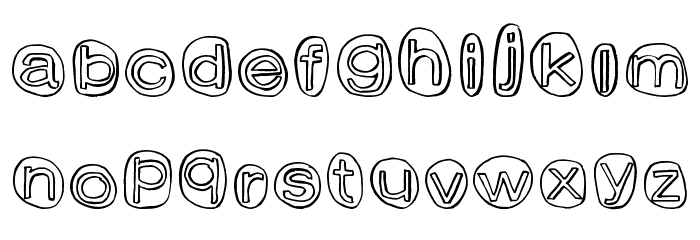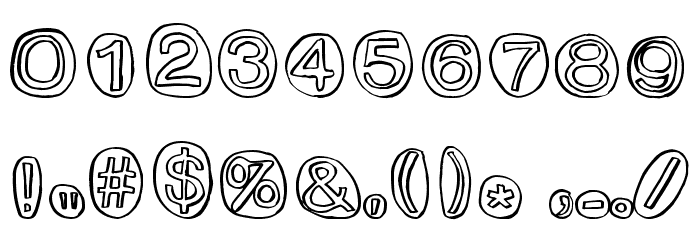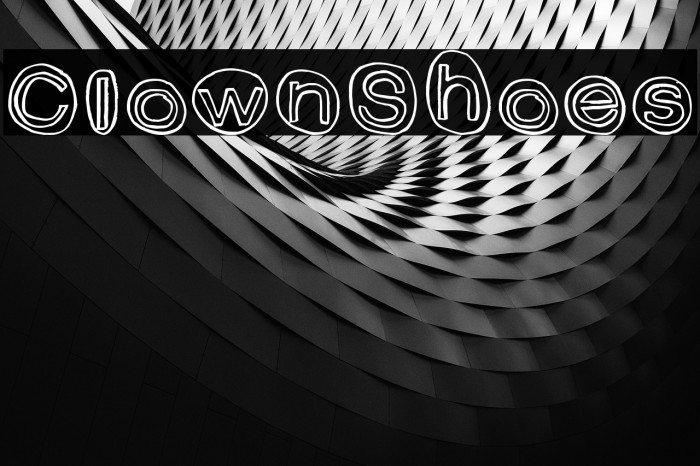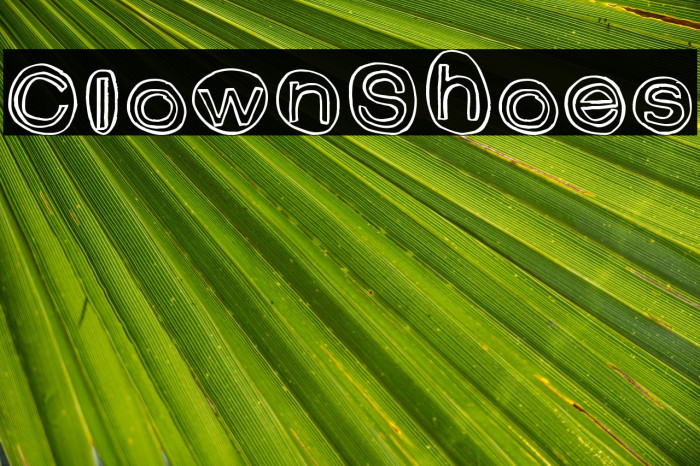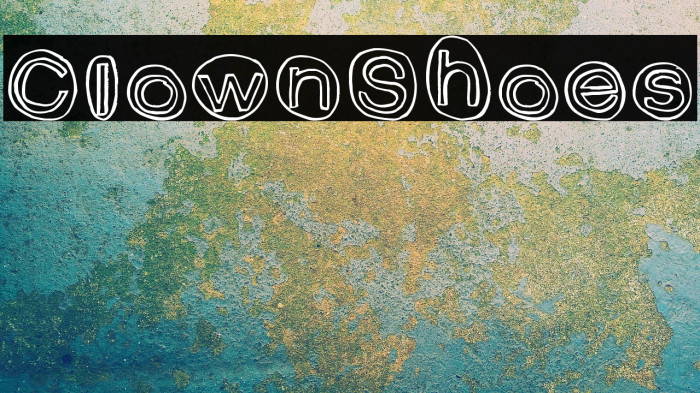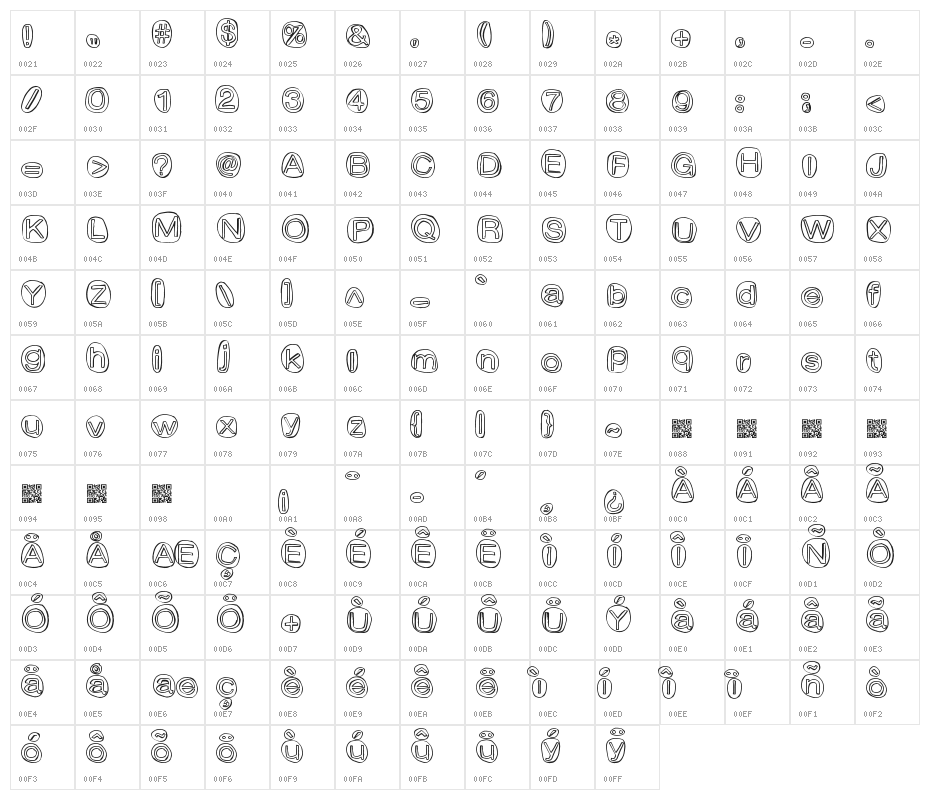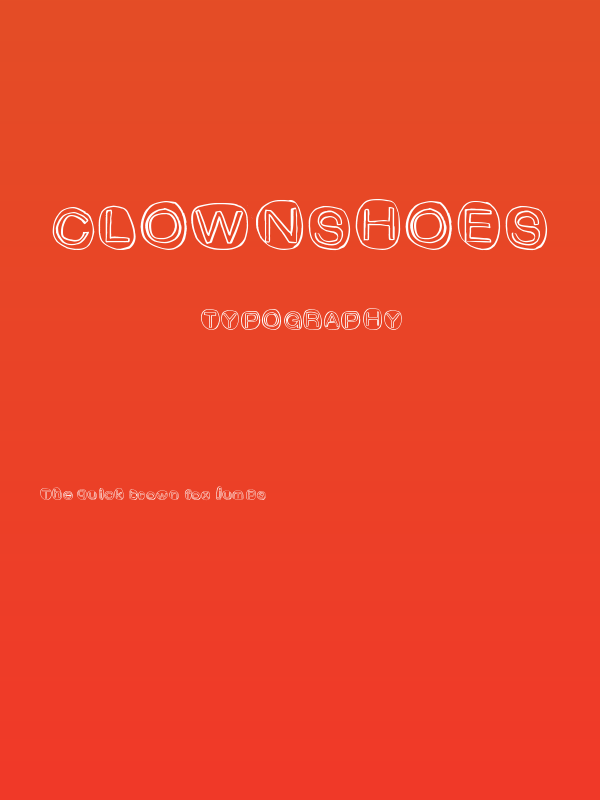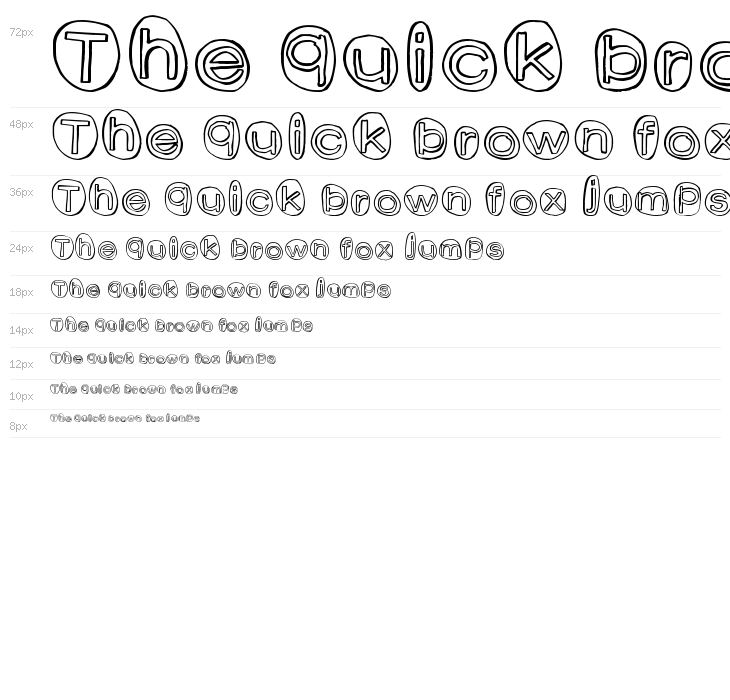
ClownShoes Font
This playful and whimsical font features bold, rounded characters with a unique outline effect that gives each letter a three-dimensional appearance. The letters are enclosed in a bubble-like shape, adding a fun and lighthearted feel. The font maintains a consistent style across uppercase, lowercase, numbers, and special characters, making it versatile for various design needs. Its cartoonish and informal style is perfect for projects that require a touch of humor and creativity. The font's distinct outline and rounded forms make it stand out, ensuring that any text set in this typeface will capture attention.
A playful, rounded font with a unique outlined, bubble-like style.
- Proposed Projects: Ideal for children's books, comic strips, party invitations, playful branding, and any project that requires a fun and whimsical touch.
- Overall Style: Playful, Whimsical
- Use Case: Headlines, Logos, Posters, Invitations